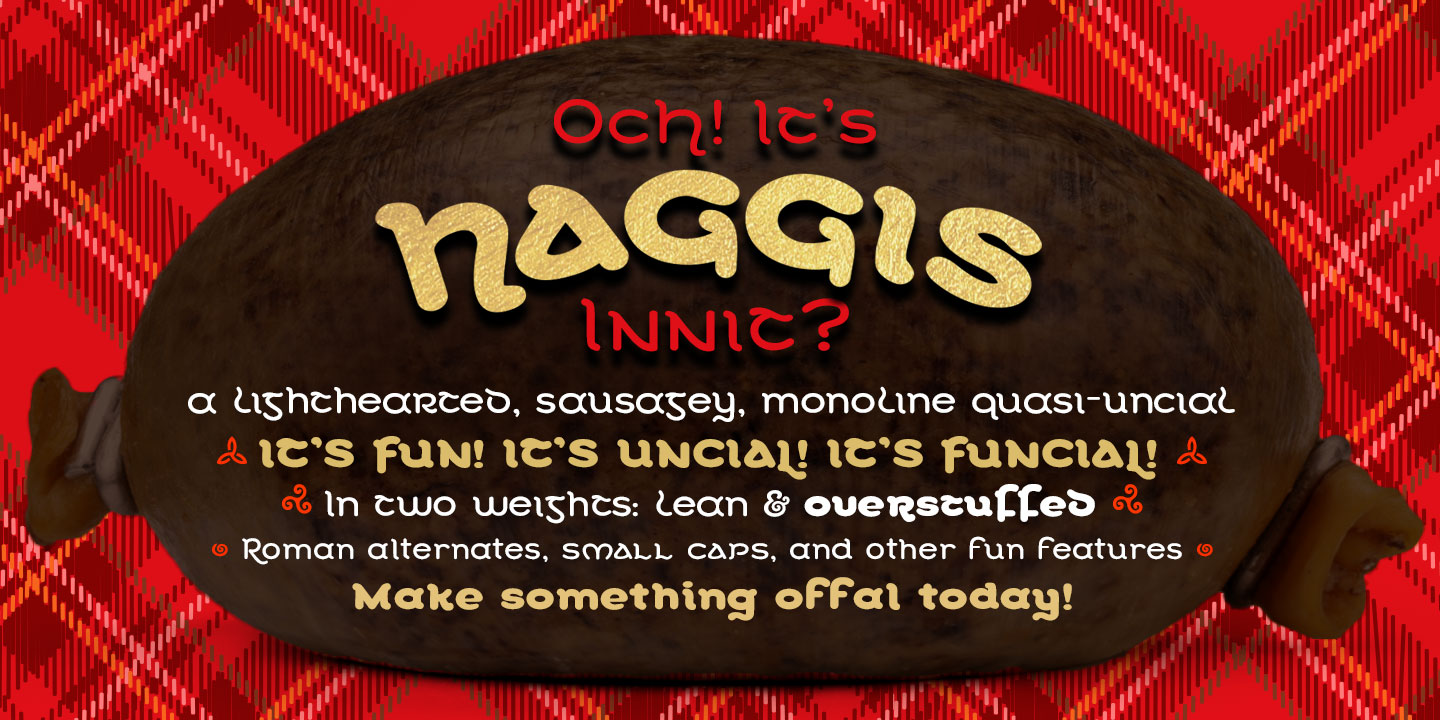
Haggis Font is perfect for traditional Scottish pub branding, Celtic heritage designs, authentic tavern signage, Highland festival promotions, rustic restaurant menus, traditional brewery communications, Celtic music event materials, and heritage tourism marketing campaigns.
What makes Haggis Font exciting is its authentic Celtic character and traditional Scottish charm that transports audiences to the rugged highlands and rich cultural heritage of Scotland. This distinctive typeface combines ancient Celtic design elements with modern readability, creating letters that echo with the spirit of Scottish tradition and Highland authenticity. The font's Celtic-inspired character details and heritage aesthetic make it an essential tool for brands seeking to communicate tradition, authenticity, and deep cultural connection.
Haggis Font family includes Regular, Bold, Light, Celtic, Highland, and Knotwork variations, plus traditional Celtic ornaments and Scottish symbols. Each style maintains the font's heritage character while providing comprehensive flexibility for creating authentic Celtic design systems and traditional brand communications that celebrate Scottish culture and Highland spirit.
Heritage design specialists consistently choose Haggis Font Free Download for projects requiring Celtic authenticity and traditional visual impact. This remarkable typeface has gained recognition among Scottish businesses, Celtic cultural organizations, and heritage tourism companies worldwide. The font's ability to convey tradition and Celtic authenticity makes it perfect for brands operating in heritage tourism, traditional hospitality, and Celtic cultural markets.
The design philosophy behind Haggis Font emphasizes Celtic tradition and Scottish authenticity. Its letterforms feature traditional construction with carefully preserved details that reflect centuries of Celtic artistic heritage and Scottish cultural identity. The font's distinctive elements include Celtic knotwork inspirations and Highland character variations that create immediate emotional connection with audiences seeking authentic Scottish experiences and Celtic cultural heritage.
Creative agencies specializing in heritage and cultural branding frequently select Haggis Font for clients requiring traditional communication and authentic Celtic brand expression. The font's versatility allows seamless integration into comprehensive heritage branding systems, from Scottish tourism campaigns to Celtic cultural event promotions, ensuring consistent brand personality across all traditional and Highland-themed touchpoints.
The technical execution of Haggis Font demonstrates meticulous attention to Celtic typography requirements and heritage design standards. Advanced OpenType features include contextual alternates and traditional ligatures that enhance creative possibilities for authentic Celtic designs. The font's comprehensive character set and Scottish symbol library make it suitable for international heritage campaigns requiring authentic Celtic typography with global Highland appeal.